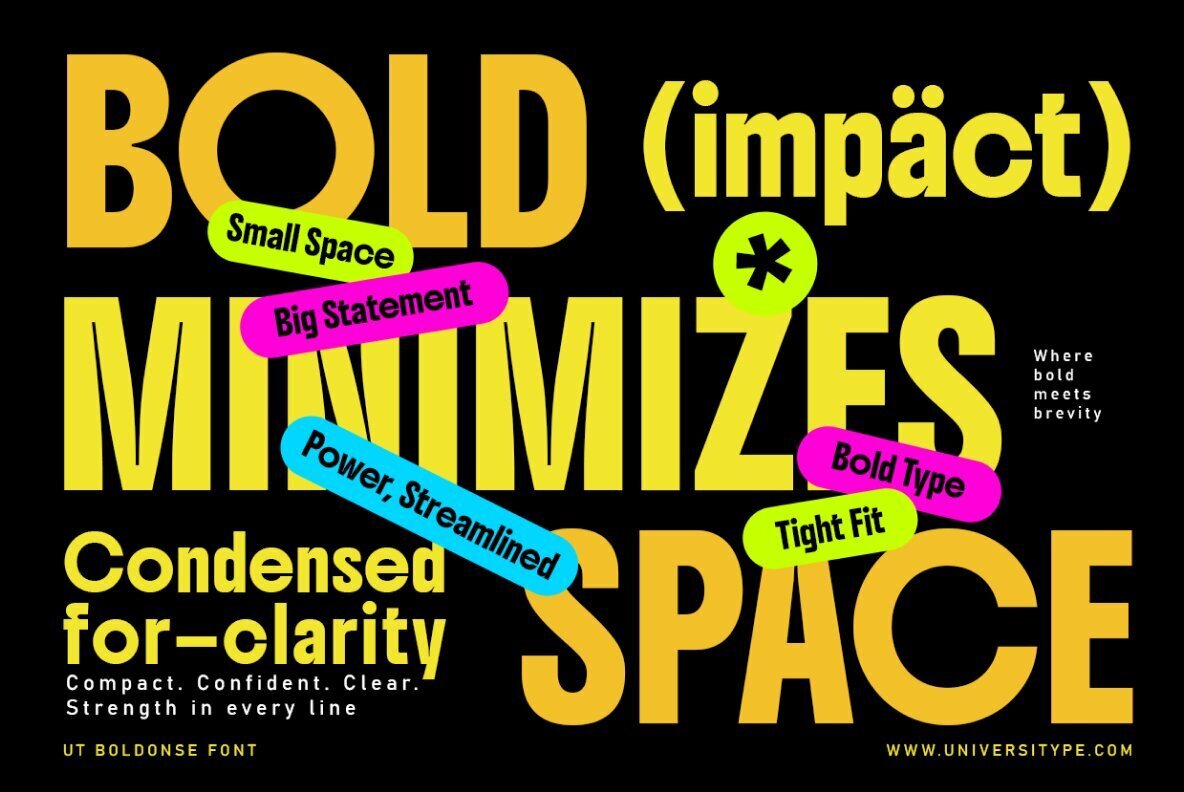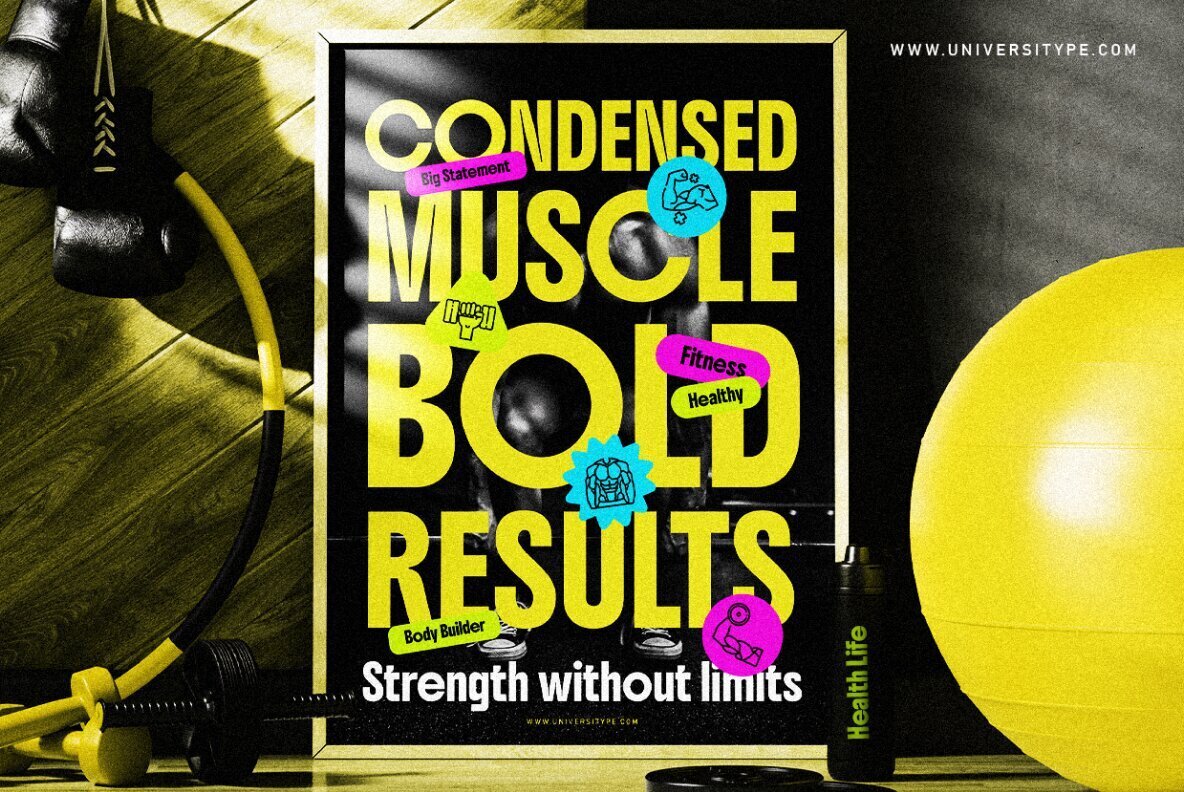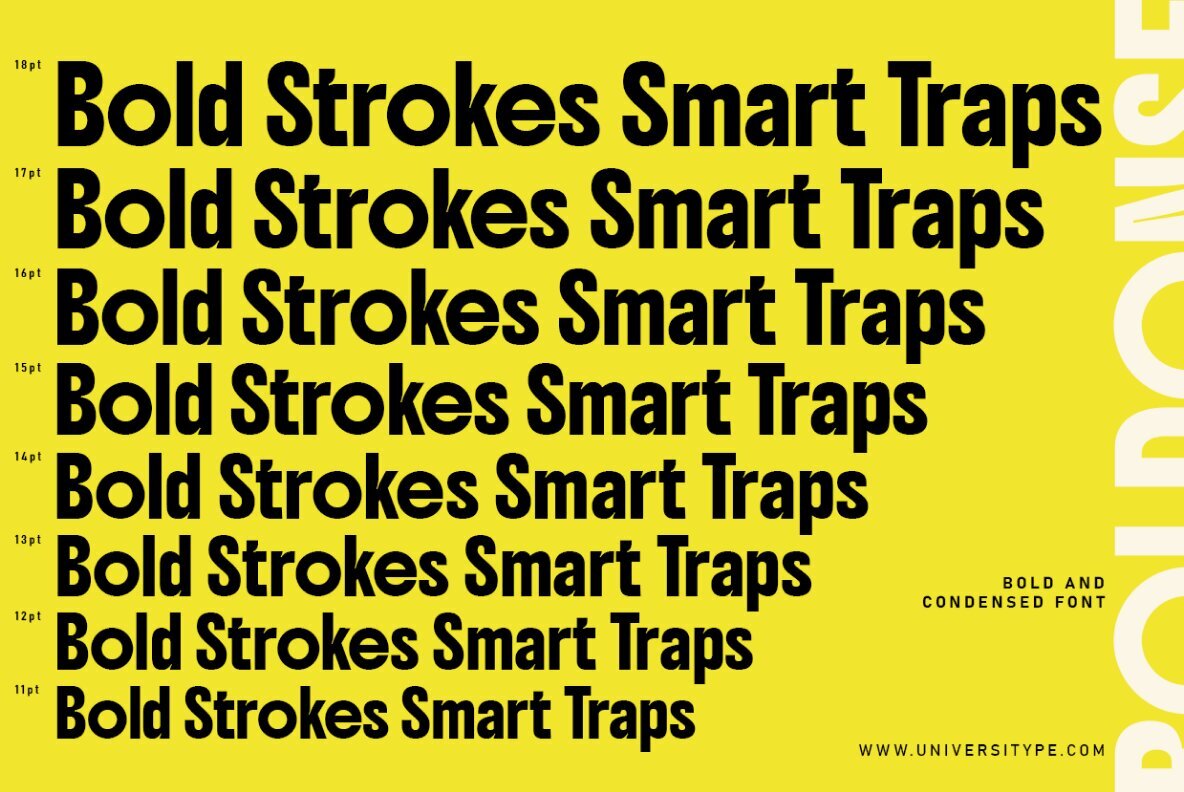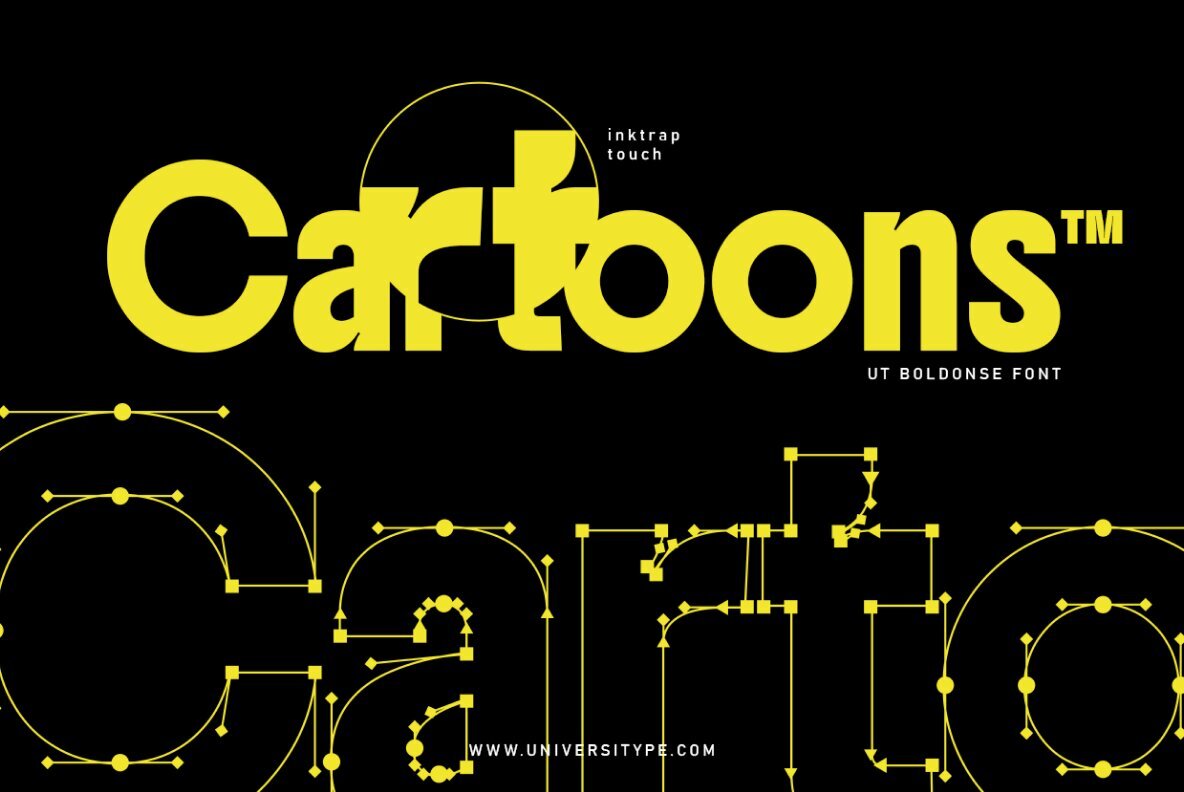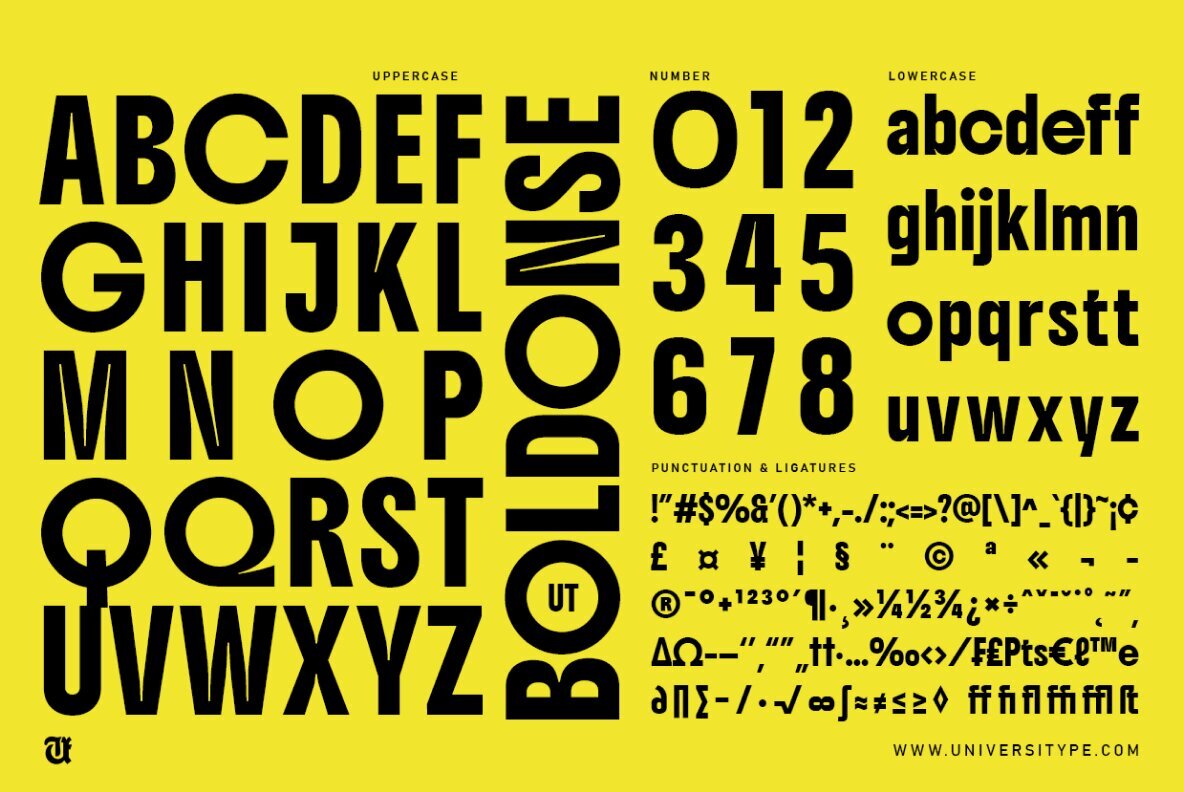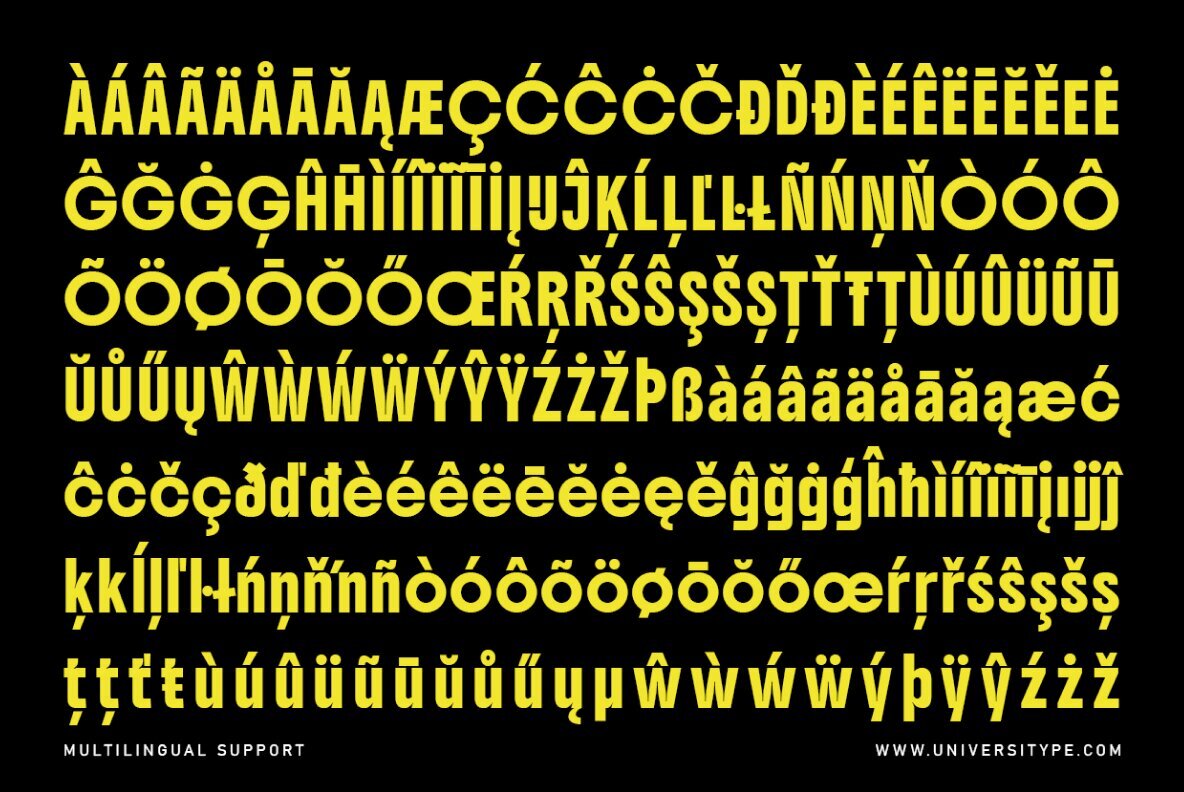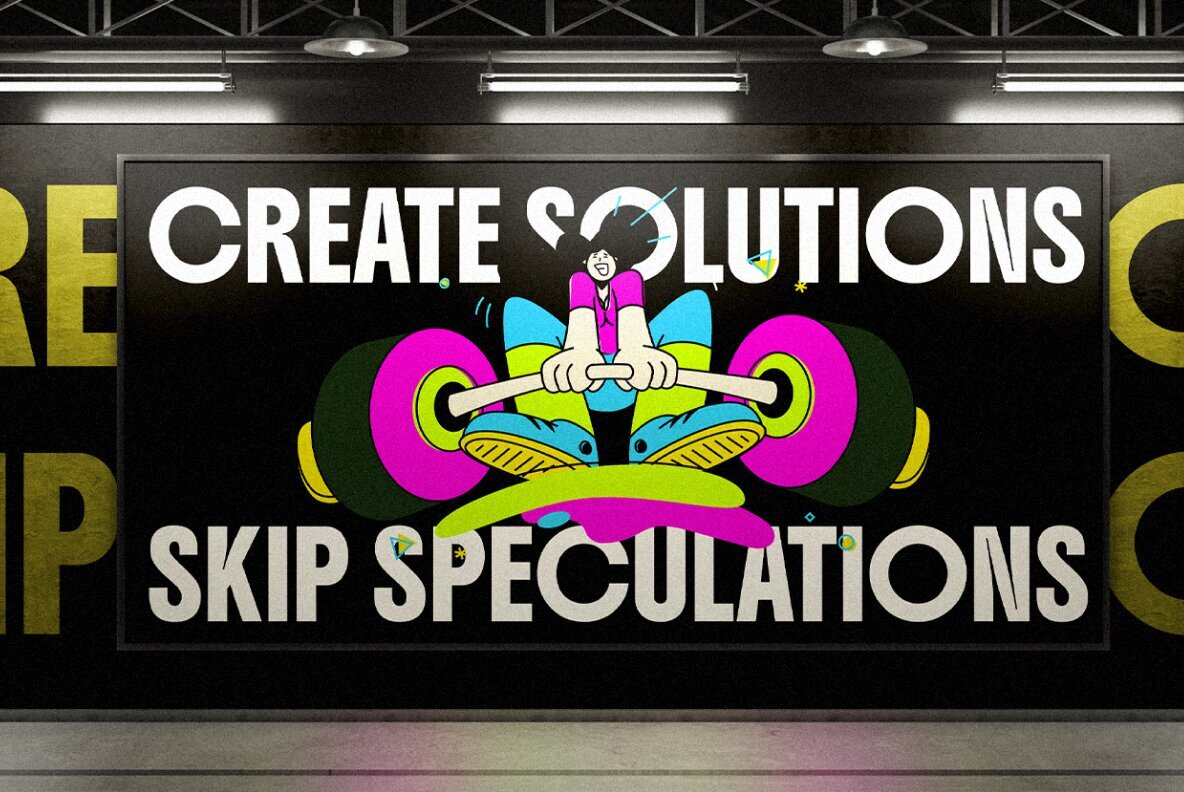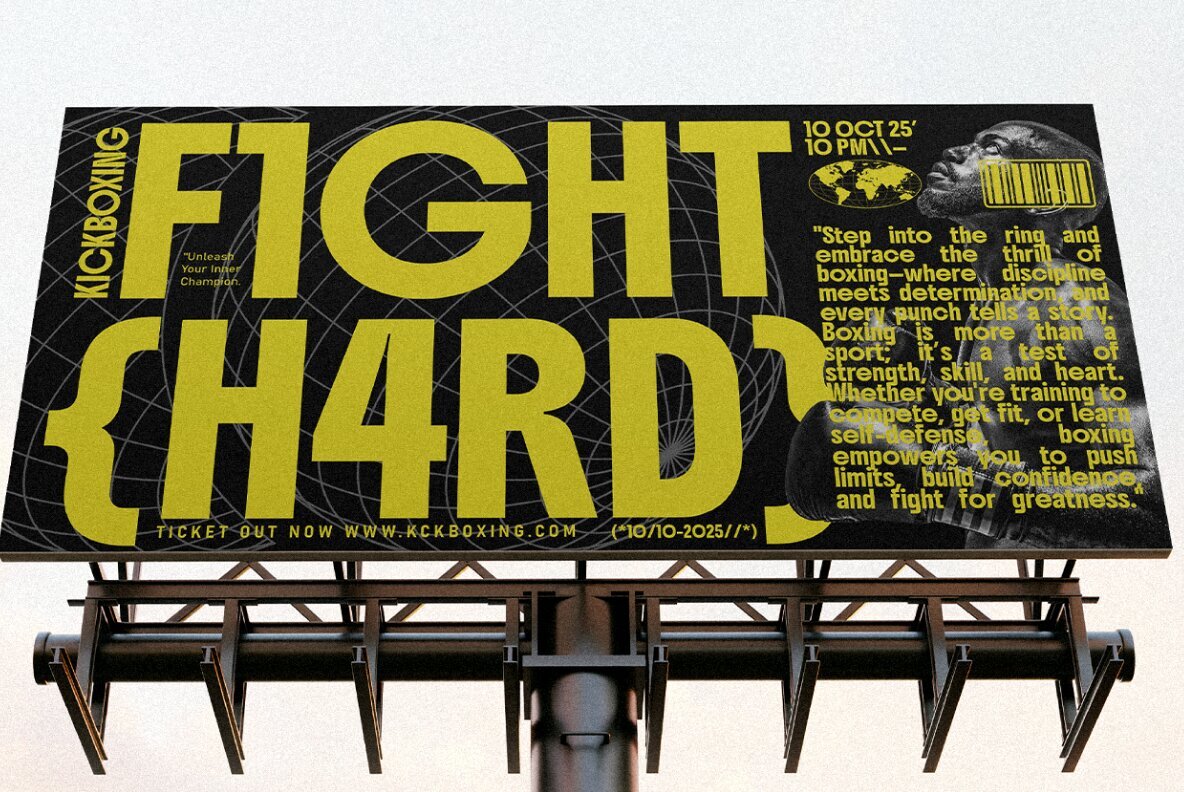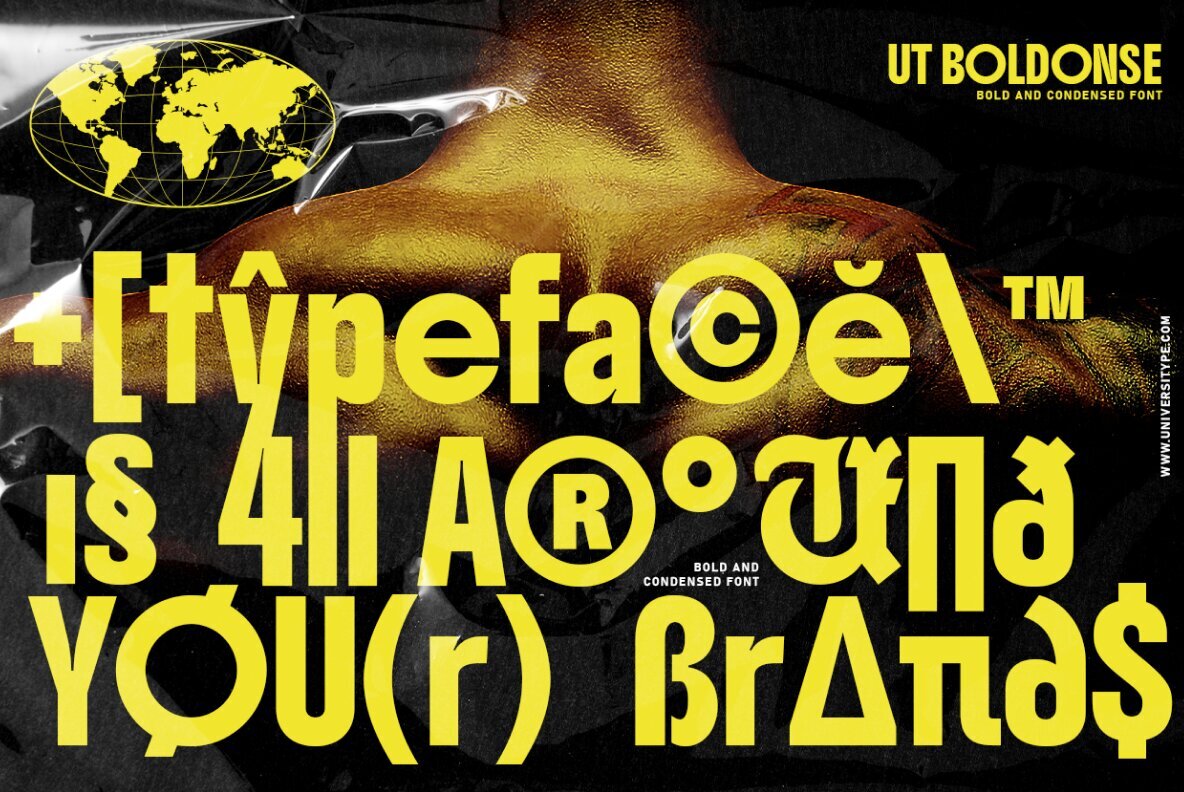
When it comes to making a big impact in design, UT Boldonse is here to help. This bold, condensed sans serif font is packed with personality and strength. It’s more than just a font—it’s the tool you need to make your designs stand out. Let’s explore why UT Boldonse is the perfect choice for your creative projects. Designers often need a font that’s eye-catching but also unique. Many fonts can feel boring or too simple. UT Boldonse fixes that problem. Its bold, condensed style grabs attention, and its fun inktrap details give it a playful personality. With UT Boldonse, your designs will always stand out. UT Boldonse isn’t like other bold fonts. It’s designed to make a statement while being easy to read. Its condensed shape works great in small spaces, and the inktrap details add both style and function. Here’s what makes UT Boldonse awesome: UT Boldonse is super flexible and works in many different designs. Here are some ideas: UT Boldonse is more than a font—it’s a way to take your designs to the next level. Here’s why it’s a favorite among designers:UT Boldonse: A Bold Typeface with a Fun Twist
Why You Need UT Boldonse
What Makes UT Boldonse Special?
Where You Can Use UT Boldonse
Why You Will Love UT Boldonse